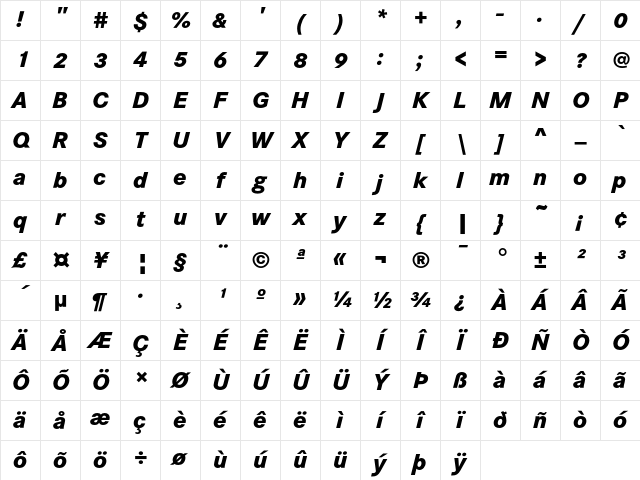
Corporate S Extra Bold Italic Free Font
Corporate S Extra Bold Italic
Style: Extra Bold Italic
Design Context for Corporate S
Corporate S is a composed and adaptable typeface that performs quietly and consistently across a wide range of design contexts. The slanted form adds forward momentum and visual energy. Its bold stroke weight gives it real presence on the page.
Pro Tip: Use Corporate S for emphasis, pull quotes, and subheadings where its slanted energy can add rhythm to the layout.